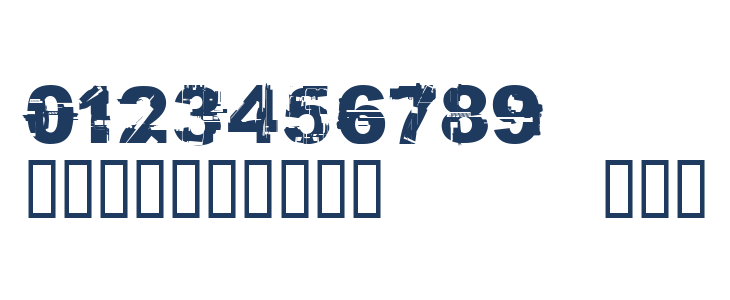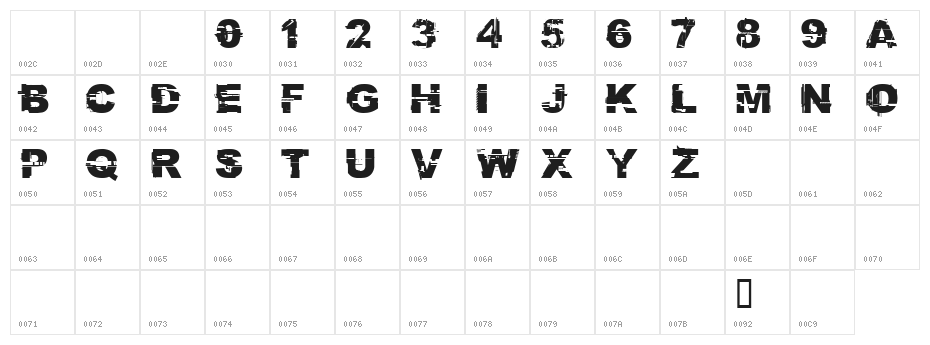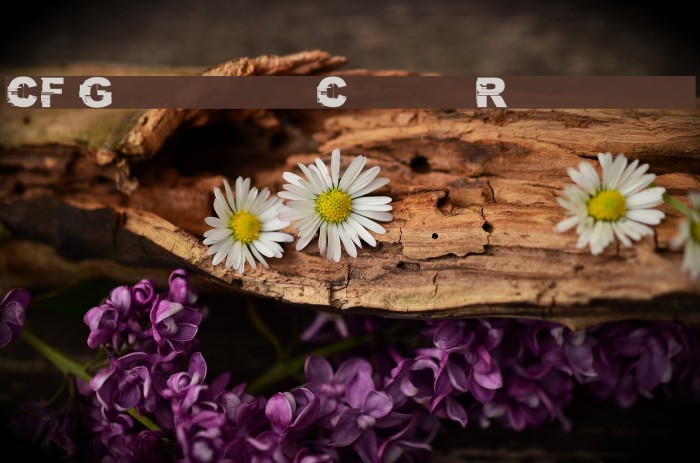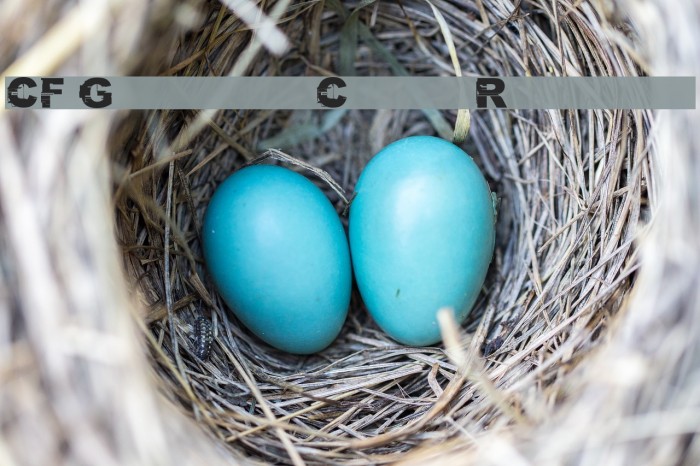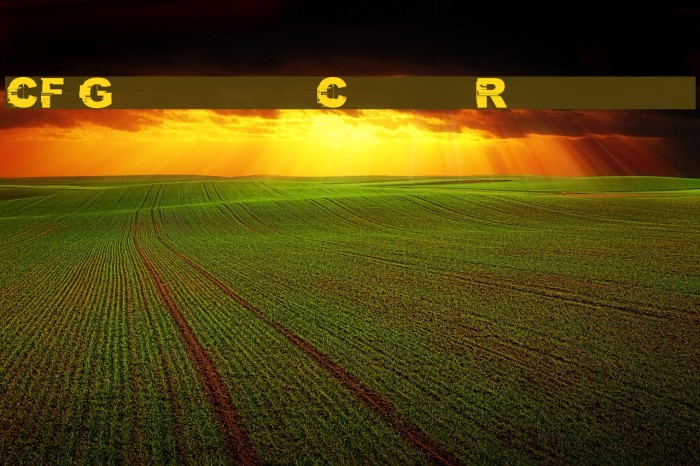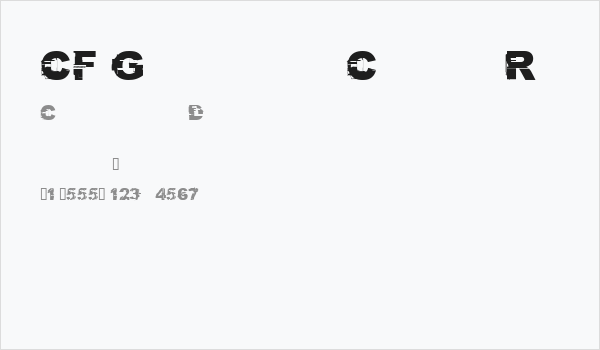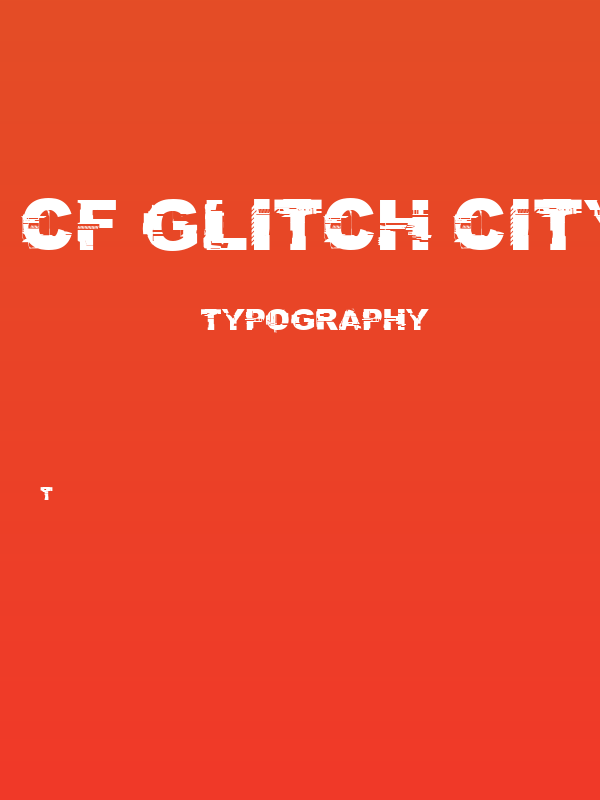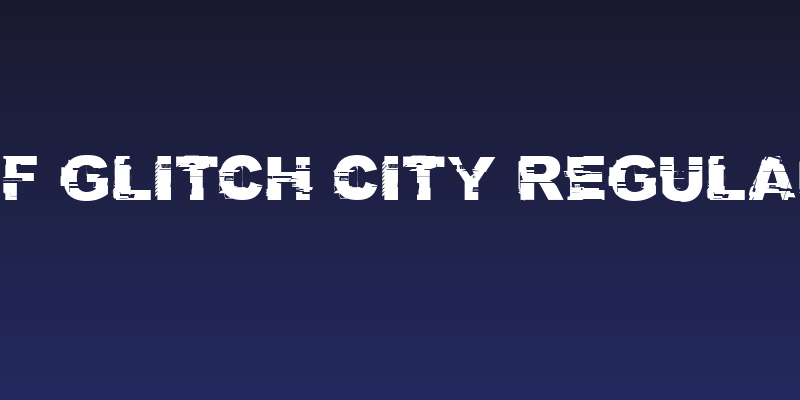
CF Glitch City Regular Font
CF Glitch City Regular Description
This font features a bold, glitch-inspired design with a digital, distorted appearance. The characters are uppercase and numerals, each exhibiting a fragmented, pixelated style that mimics a digital error or screen malfunction. The bold strokes are intersected by horizontal lines and irregular shapes, creating a sense of movement and chaos. This unique style is eye-catching and modern, making it ideal for projects that require a futuristic or tech-oriented aesthetic. The font's distinct appearance is perfect for creative designs that aim to stand out.
| Proposed Projects | Ideal for digital art, tech-themed posters, video game graphics, and futuristic branding. |